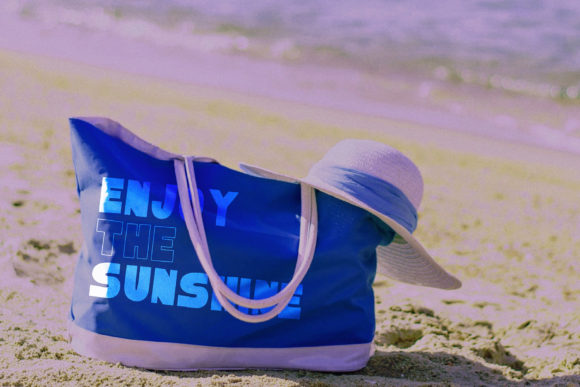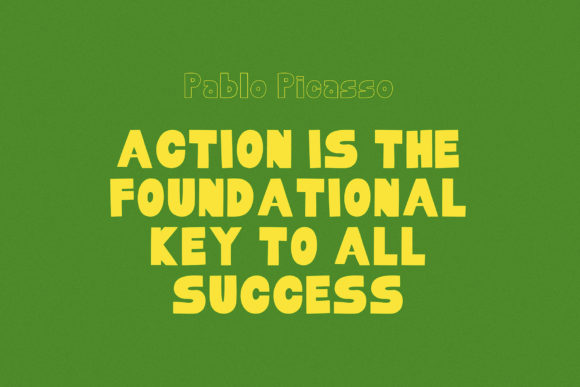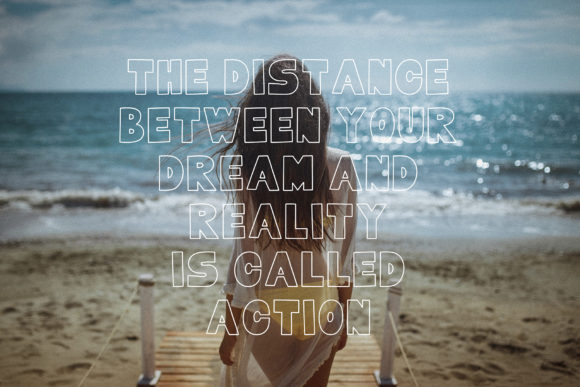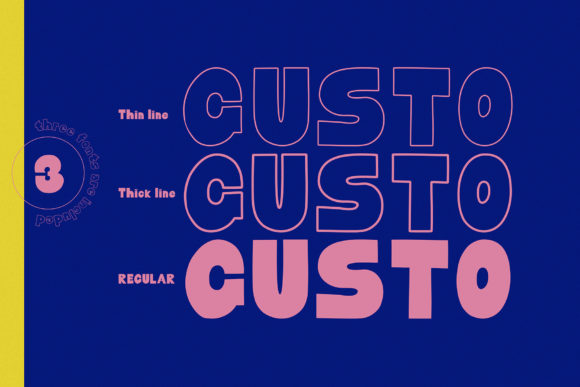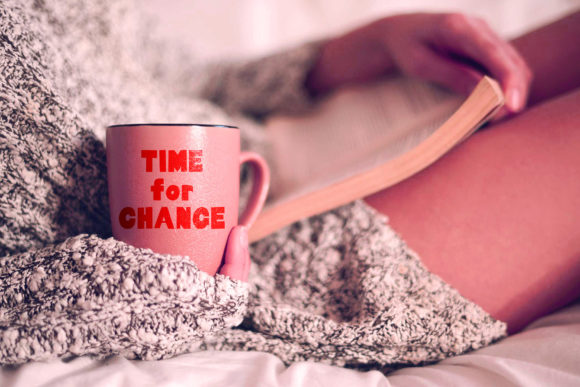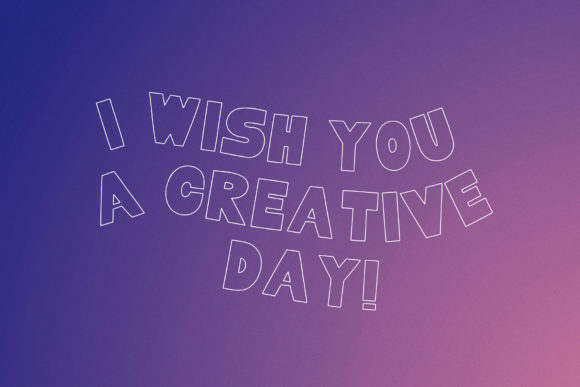
Gusto Font: The Ultimate Bold, Outlined, and Cool Display Font for Designers and Crafters
Are you tired of using the same old fonts for your branding projects? Look no further than Gusto Font, a bold, outlined, and cool display font that’s perfect for making a statement. Whether you’re working on a logo, t-shirt printing, or creative products, Gusto Font is sure to take your design to the next level.
What Makes Gusto Font So Special?
Gusto Font is a unique and eye-catching font that’s designed to stand out in a variety of contexts. Its bold and outlined design makes it perfect for headlines, titles, and other applications where you want to grab attention. The font’s cool and edgy vibe also makes it ideal for designs that require a bit of attitude and personality.
Perfect for Branding Projects
Gusto Font is a versatile font that can be used for a wide range of branding projects, including:
- Logos: Gusto Font’s bold and outlined design makes it perfect for creating memorable and impactful logos that will help your brand stand out.
- T-shirt printing: The font’s cool and edgy vibe makes it ideal for t-shirt printing, and its bold design ensures that your message will be loud and clear.
- Creative products: Whether you’re designing posters, flyers, or brochures, Gusto Font is sure to add a touch of personality and style to your creative products.
Why Designers and Crafters Love Gusto Font
Designers and crafters love Gusto Font for its unique combination of boldness, outline, and coolness. Here are just a few reasons why:
- Easy to read: Despite its bold design, Gusto Font is surprisingly easy to read, making it perfect for headlines and titles.
- Highly versatile: Gusto Font can be used for a wide range of design projects, from logos and t-shirt printing to creative products and more.
- Unique and eye-catching: Gusto Font’s bold and outlined design makes it truly unique and eye-catching, ensuring that your design will stand out from the crowd.
How to Use Gusto Font in Your Design Projects
Using Gusto Font in your design projects is easy. Here are a few tips to get you started:
- Pair it with a simple font: Gusto Font’s bold design can be overwhelming if used excessively. Pair it with a simple font to create visual interest and balance.
- Experiment with colors: Gusto Font looks great in a variety of colors, so don’t be afraid to experiment and find the perfect hue for your design.
- Use it sparingly: While Gusto Font is perfect for headlines and titles, it’s not ideal for body text. Use it sparingly to create visual interest and emphasis.
Gusto Font is a bold, outlined, and cool display font that’s perfect for designers and crafters looking to add a touch of personality and style to their branding projects. Its unique combination of boldness, outline, and coolness makes it ideal for logos, t-shirt printing, creative products, and more. With its ease of use, versatility, and eye-catching design, Gusto Font is sure to become a favorite in your design toolkit.